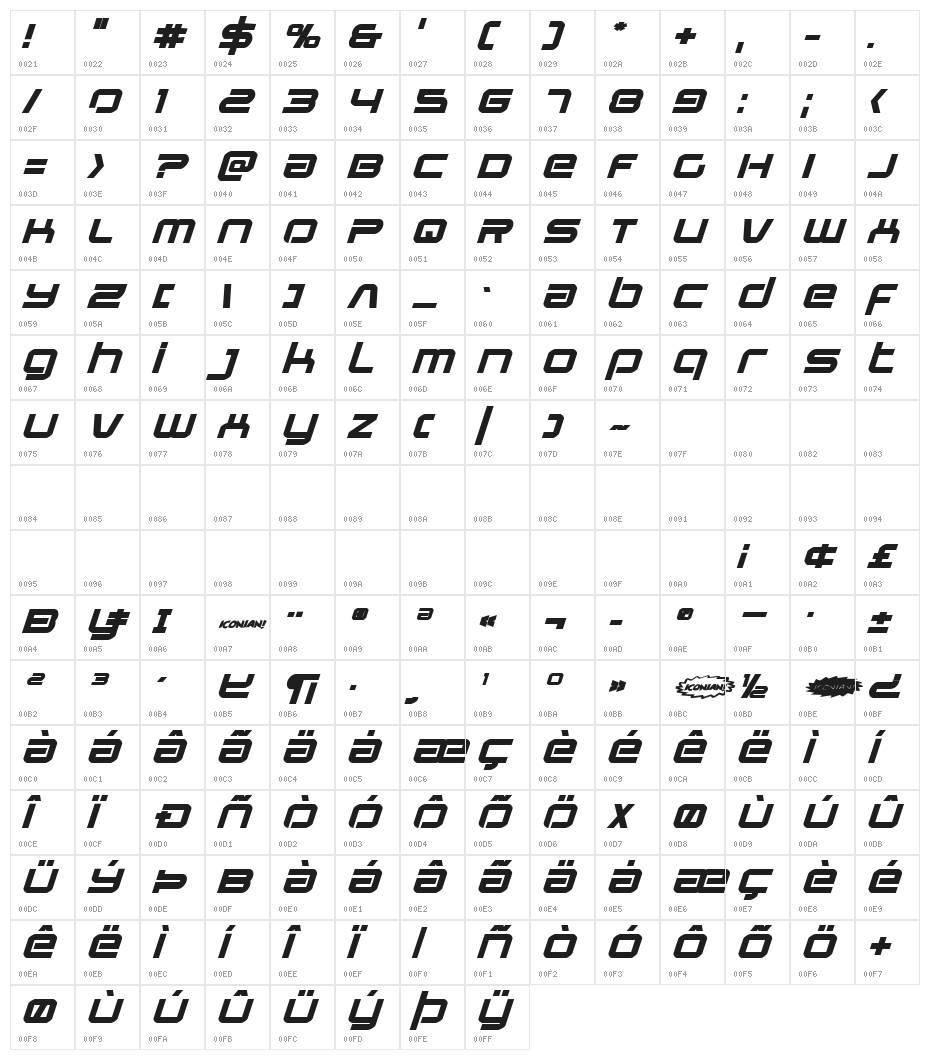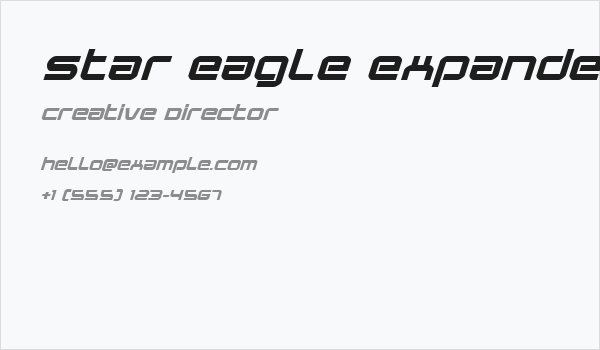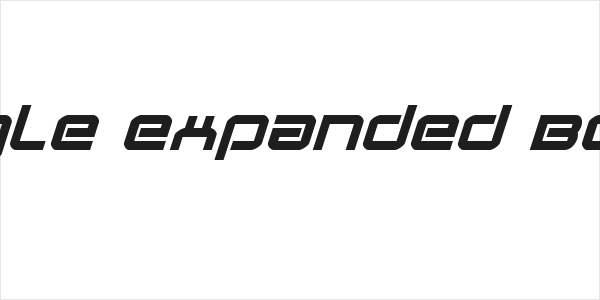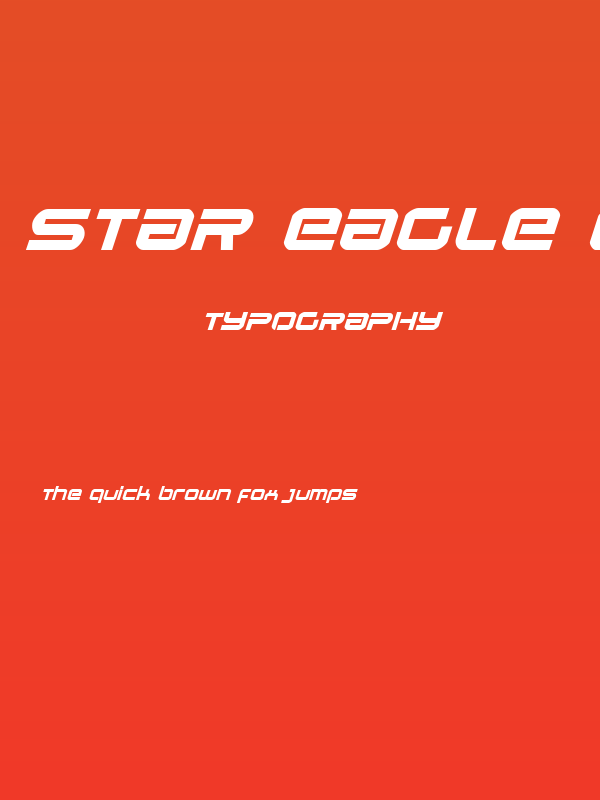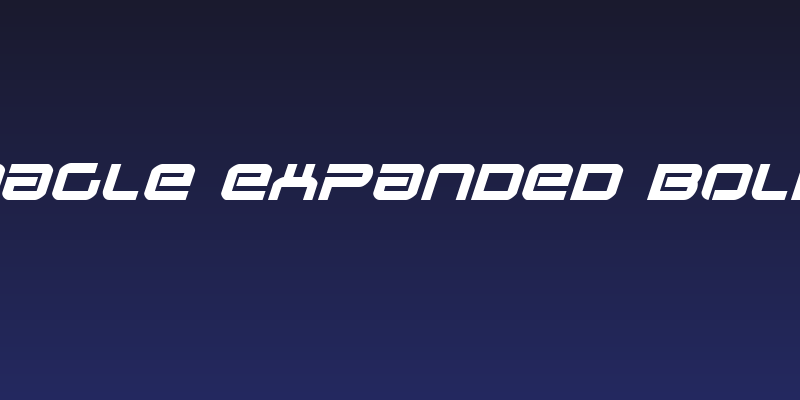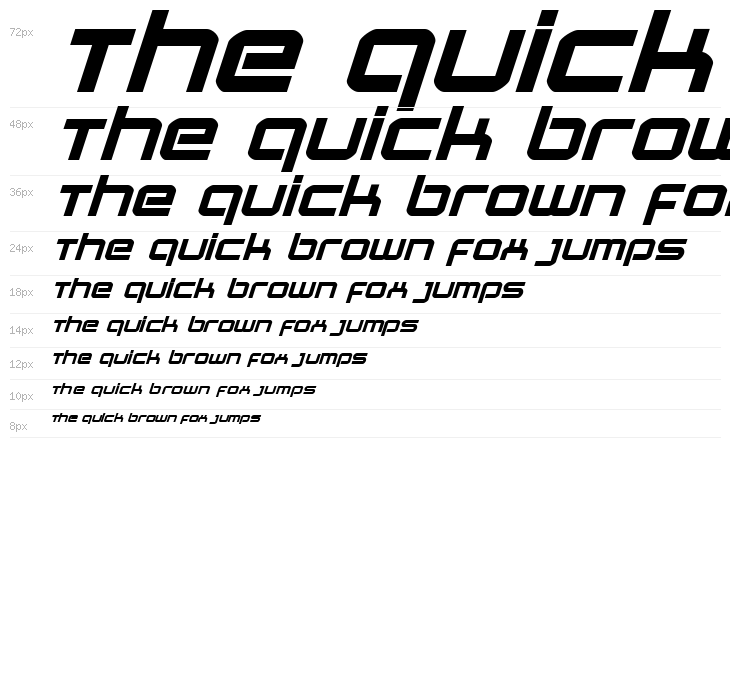
Star Eagle Expanded Bold Italic Font
Star Eagle Expanded Bold Italic Description
This font features a futuristic and dynamic design, characterized by its bold and italicized letterforms. The expanded width gives it a commanding presence, making it ideal for attention-grabbing headlines. The angular and geometric shapes of the characters convey a sense of speed and modernity, reminiscent of sci-fi aesthetics. The consistent stroke weight across all characters ensures readability, while the italic slant adds a touch of motion and energy. This font is well-suited for projects that require a bold and modern look, such as technology branding, sports team logos, or video game titles.
| Proposed Projects | Ideal for technology branding, sports logos, video game titles, and sci-fi themed designs. |